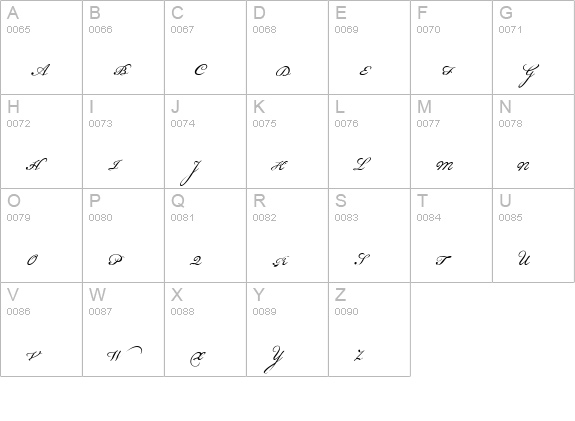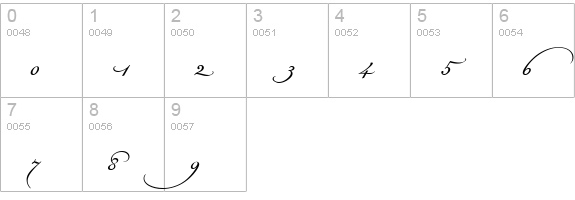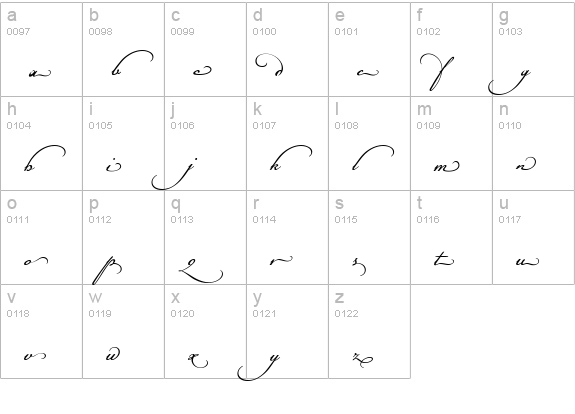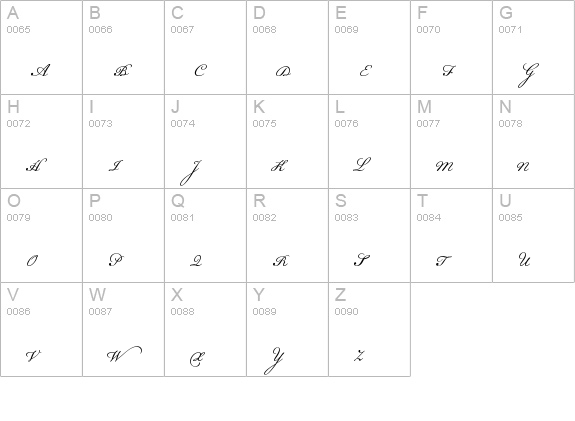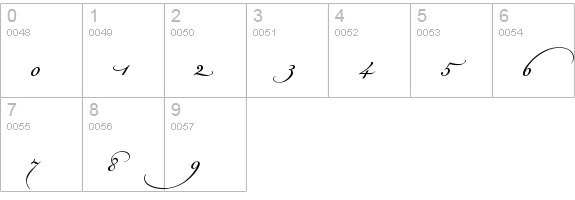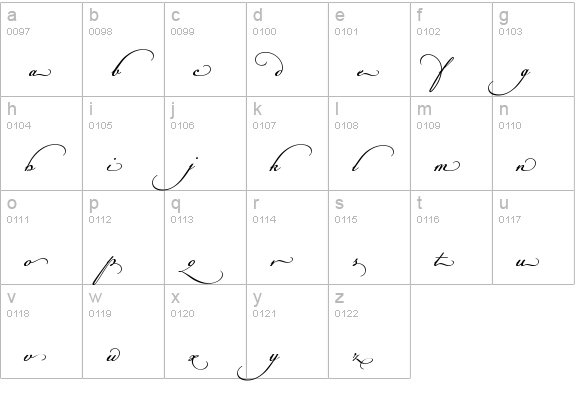
Champignon Alt Swash Font Details
Champignon Alt Swash font is a stunning display typeface that exudes elegance and sophistication. Its intricate swashes and delicate curves make it a perfect choice for projects that require a touch of luxury and finesse. This font is the epitome of versatility, as it can seamlessly adapt to a wide range of design projects. Whether you're creating wedding invitations, branding materials, or editorial layouts, Champignon Alt Swash will add a captivating and unique element to your work. One of the most appealing features of this font is that it is freely available to download at FontsMarket.com. This means that you can easily access and incorporate it into your designs without any hassle. The fact that it is free makes it even more desirable, as it allows designers of all levels to elevate their work without breaking the bank. Champignon Alt Swash font is a true gem in the world of typography. Its graceful aesthetics and ease of use make it a must-have for any designer looking to make a lasting impression. So, why wait? Download this beautiful font today and let your creativity soar!